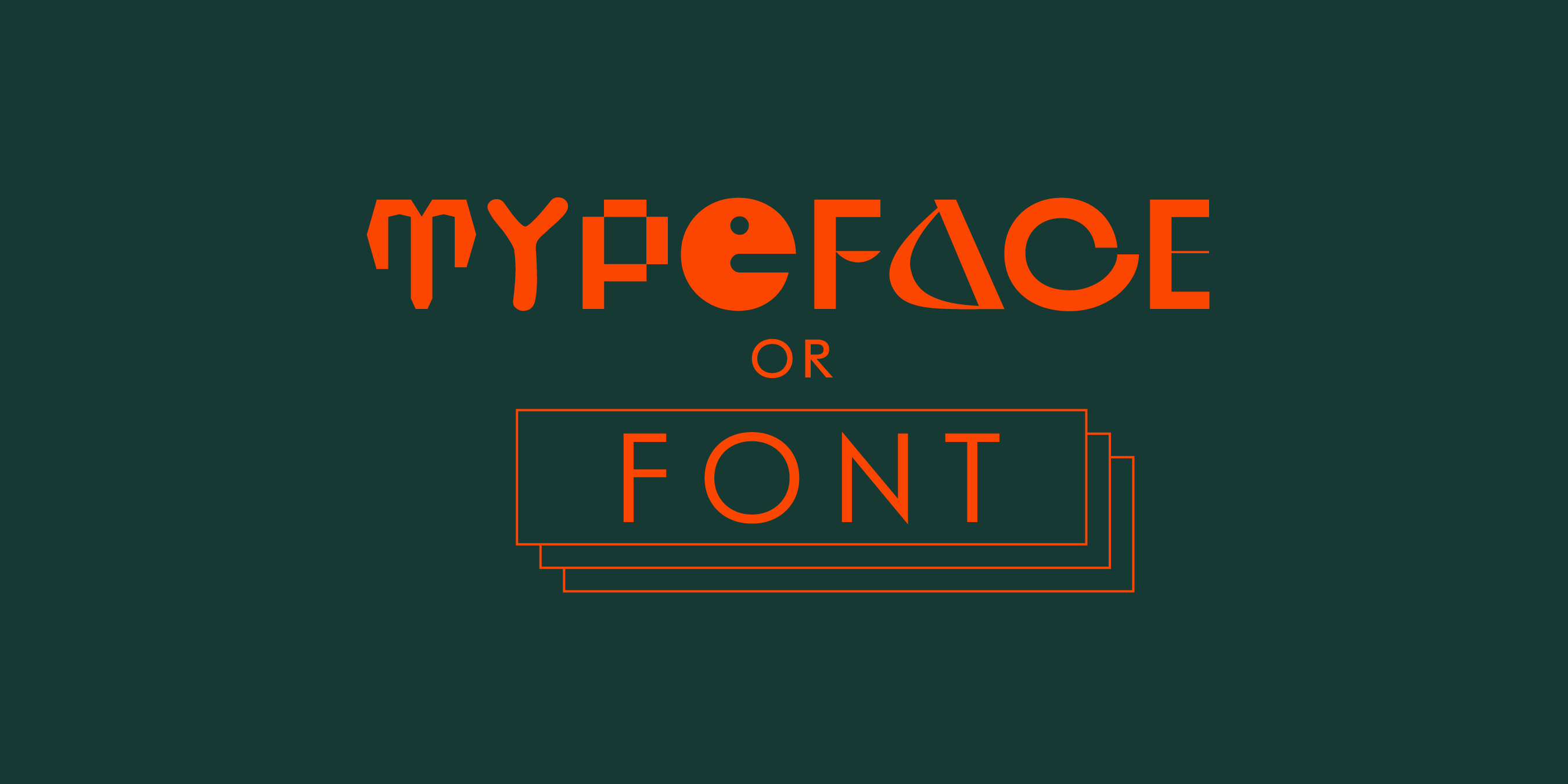
Demystifying Typeface and Font: What’s the Difference?
In the world of typography, the terms “typeface” and “font” are often used interchangeably, and that’s perfectly okay. In fact, most people use the term “font” when they actually mean “typeface.” Understanding the distinction is helpful, but don’t be afraid to mix them up in everyday conversation (unless you want to come across as a super pro)—what matters most is how you use them in your design projects.
Breaking Down the Difference
To put it simply, a typeface is “the design”—the visual style that defines how letters and characters look. Think of it as a car model, like a BMW 3 Series or an Audi A4. Each typeface has unique characteristics, such as squarish Os, slim ink traps, thinner crossbars, and rounded terminals—the visual effects that first come to mind when you look at the design.
On the other hand, fonts are the software you buy and install on your computer, enabling you to type in a particular typeface. They come in various formats like TTF (TrueType Font), OTF (OpenType Font), and WOFF/WOFF2 (Web Open Font Format). If the typeface is the car model, then the fonts are the specific versions of that model—like the sedan, hatchback, or SUV variants, as well as different trim levels like standard or sport.
Font Weights and Styles
Multiple fonts represent different weights and styles within a typeface. For example, Helvetica Bold and Helvetica Italic are different fonts within the Helvetica typeface family. These variations allow designers to create visual hierarchy and emphasis in their layouts, much like choosing different features and options for a car to suit specific needs and preferences.
A Brief History
The terms “typeface” and “font” have historical roots in the world of printing. “Typeface” refers to the overall design of the letters, while “font” comes from the Middle French word “fonte,” meaning the action or process of casting in metal. In the past, printers had to create and organize physical blocks of type, each representing a different font. This meticulous process required a clear distinction between the design (typeface) and its variations (fonts).
Why It Matters
For modern designers, knowing the difference between typeface and font can improve communication in design projects. However, the key takeaway is to focus on the practical application of typography. Whether you use “typeface” or “font,” the goal is to create effective designs.
In Short
Don’t get bogged down by terminology. Understanding the difference between a typeface and a font is useful, but it shouldn’t be a barrier to creativity.